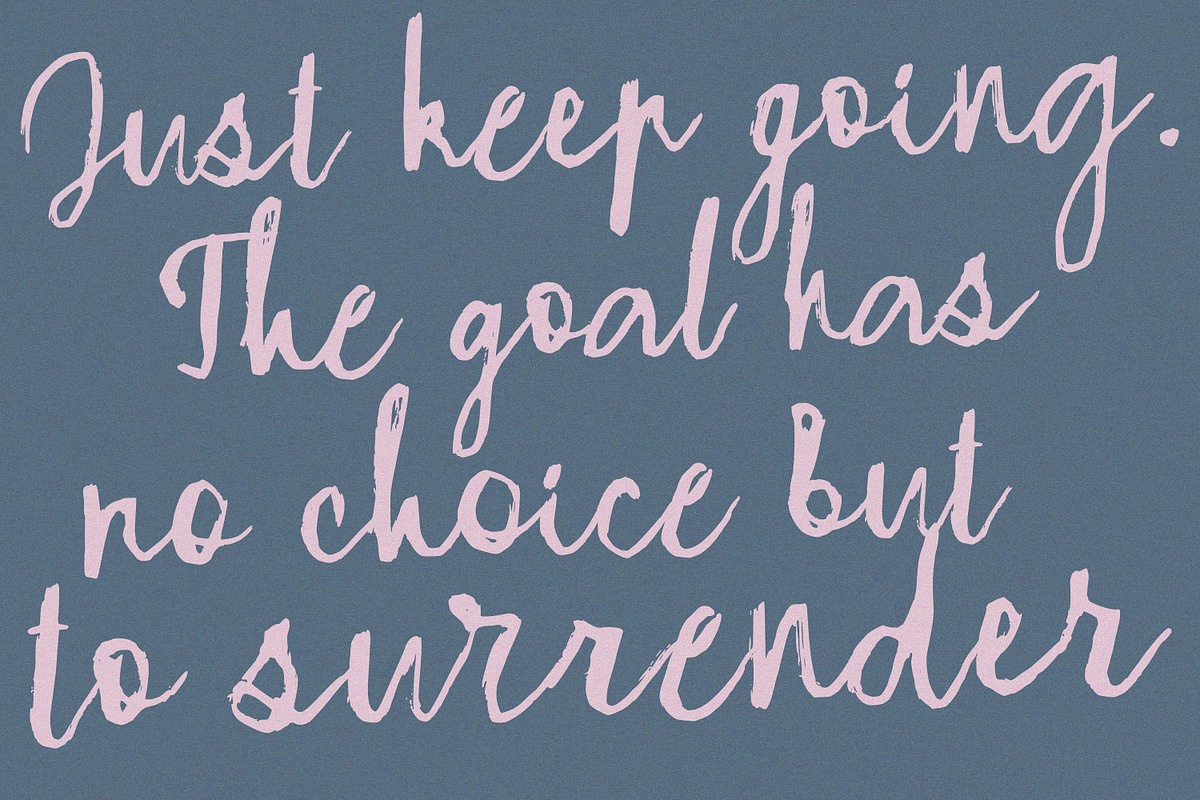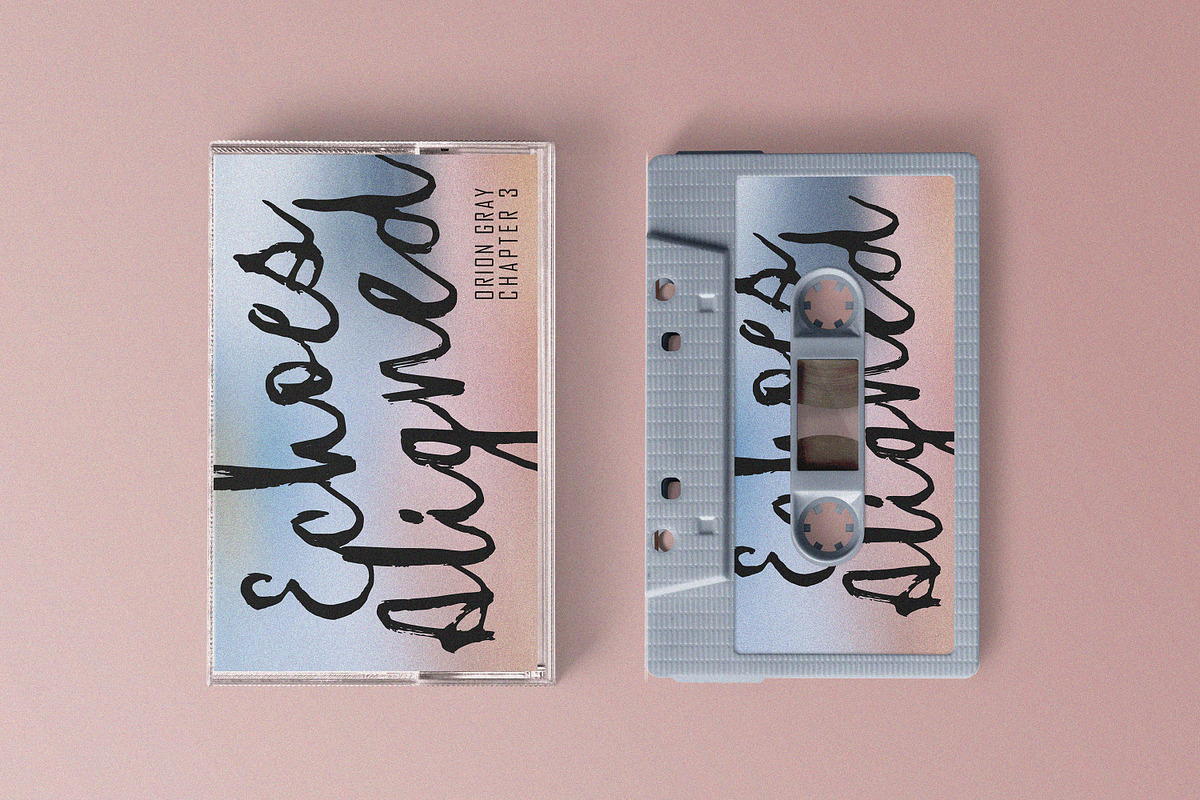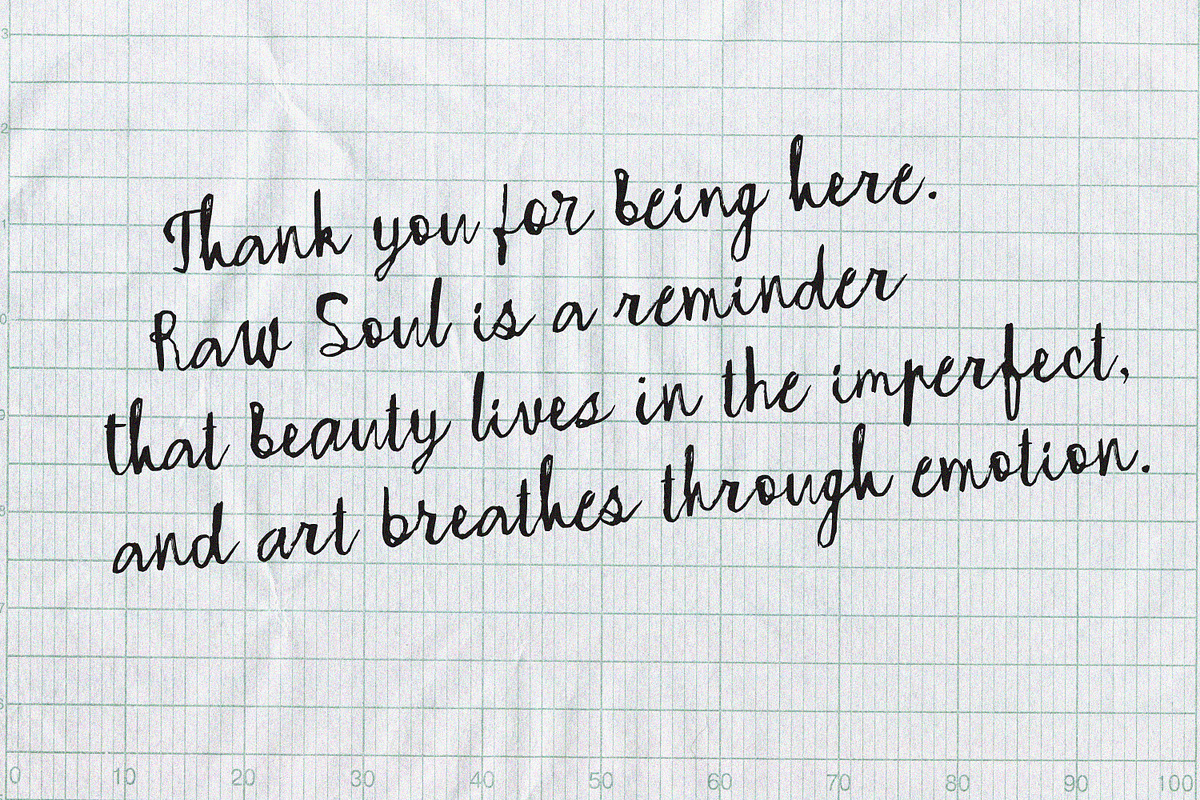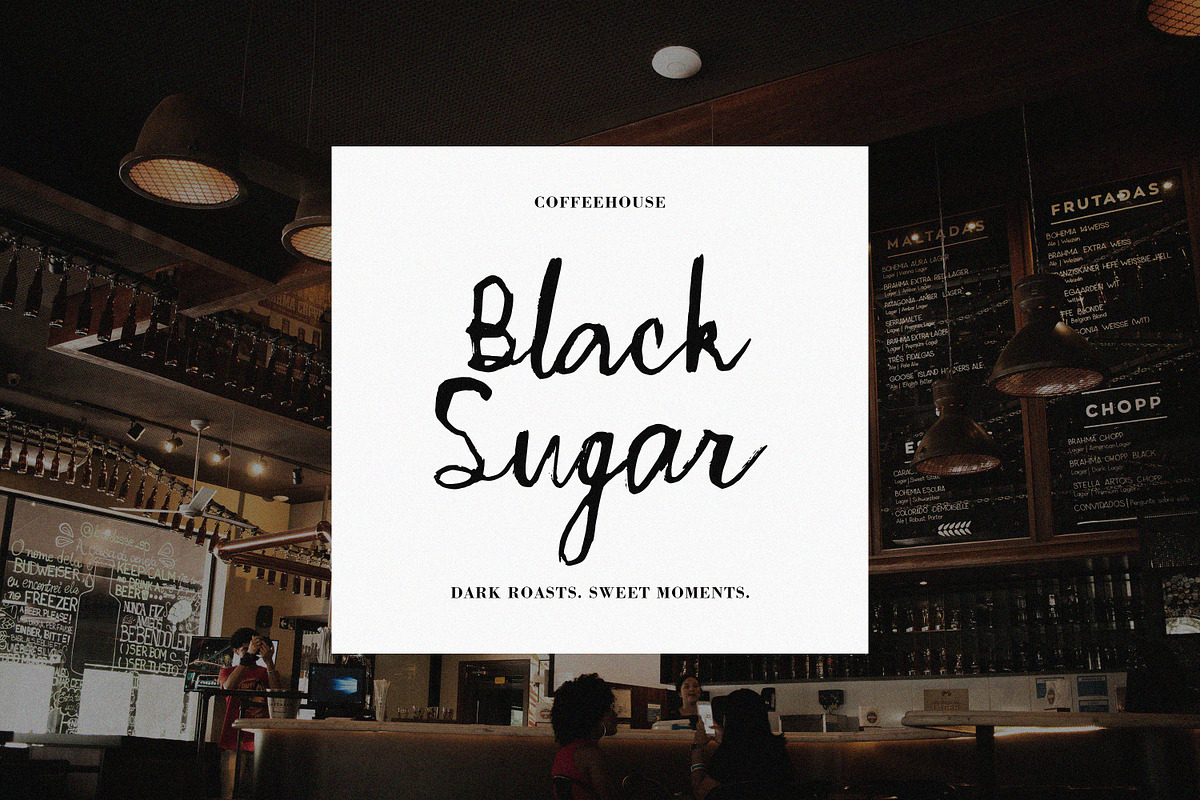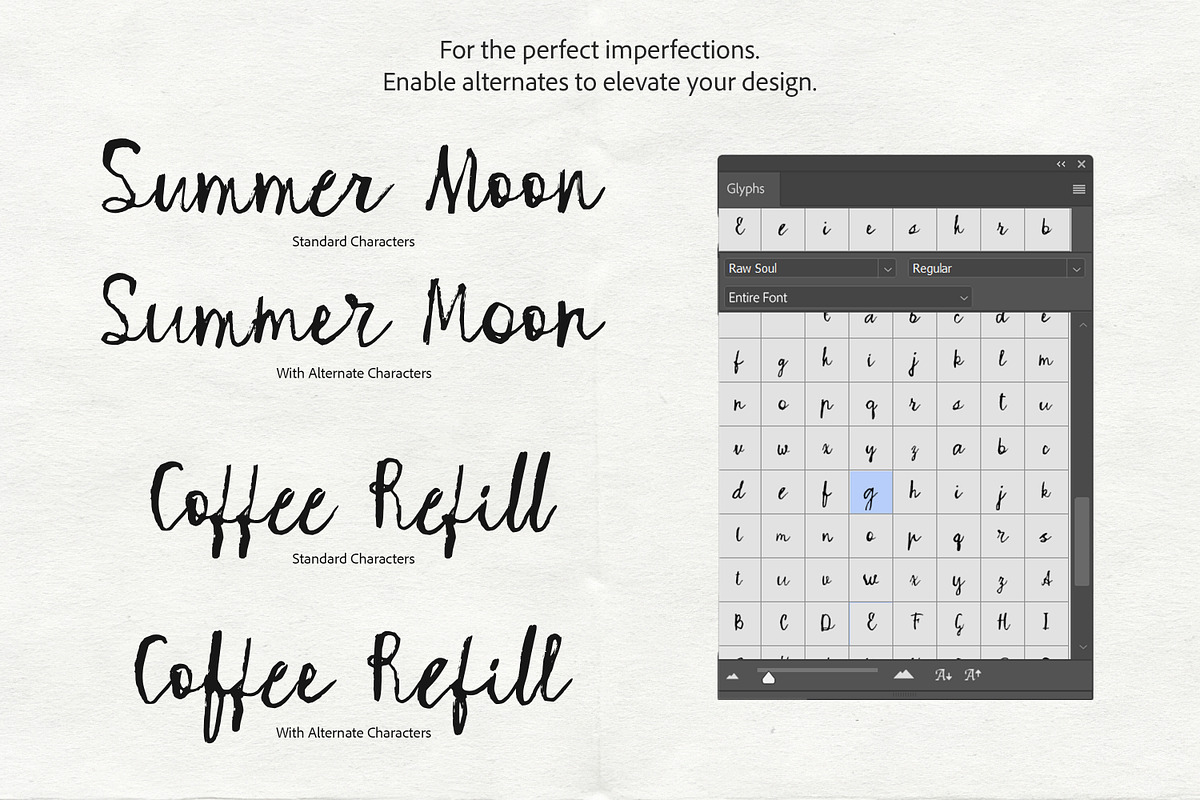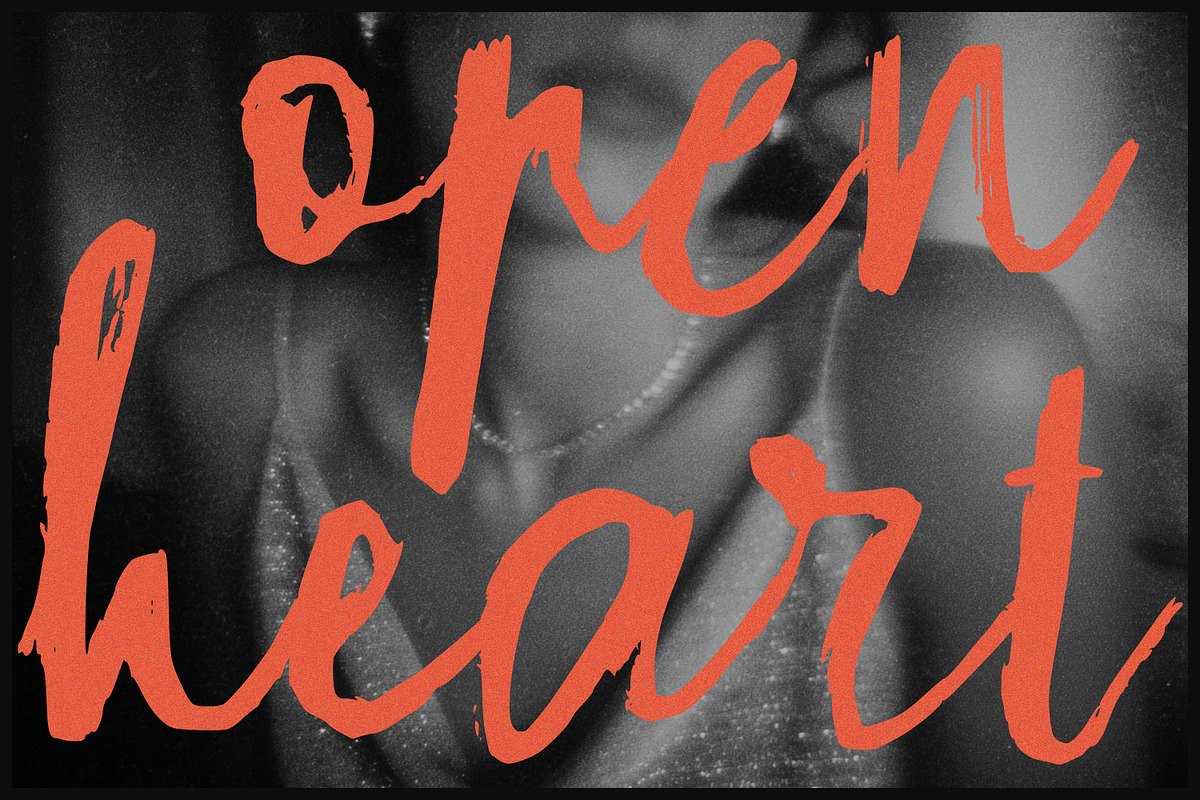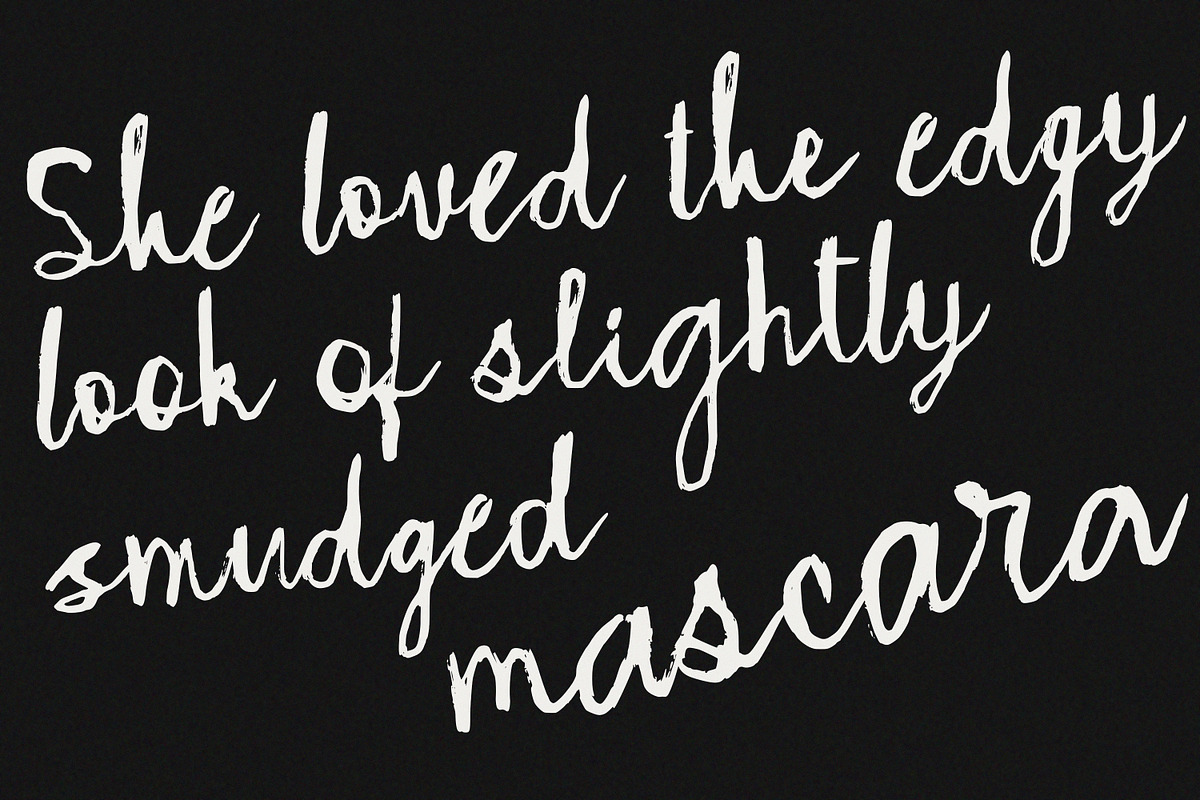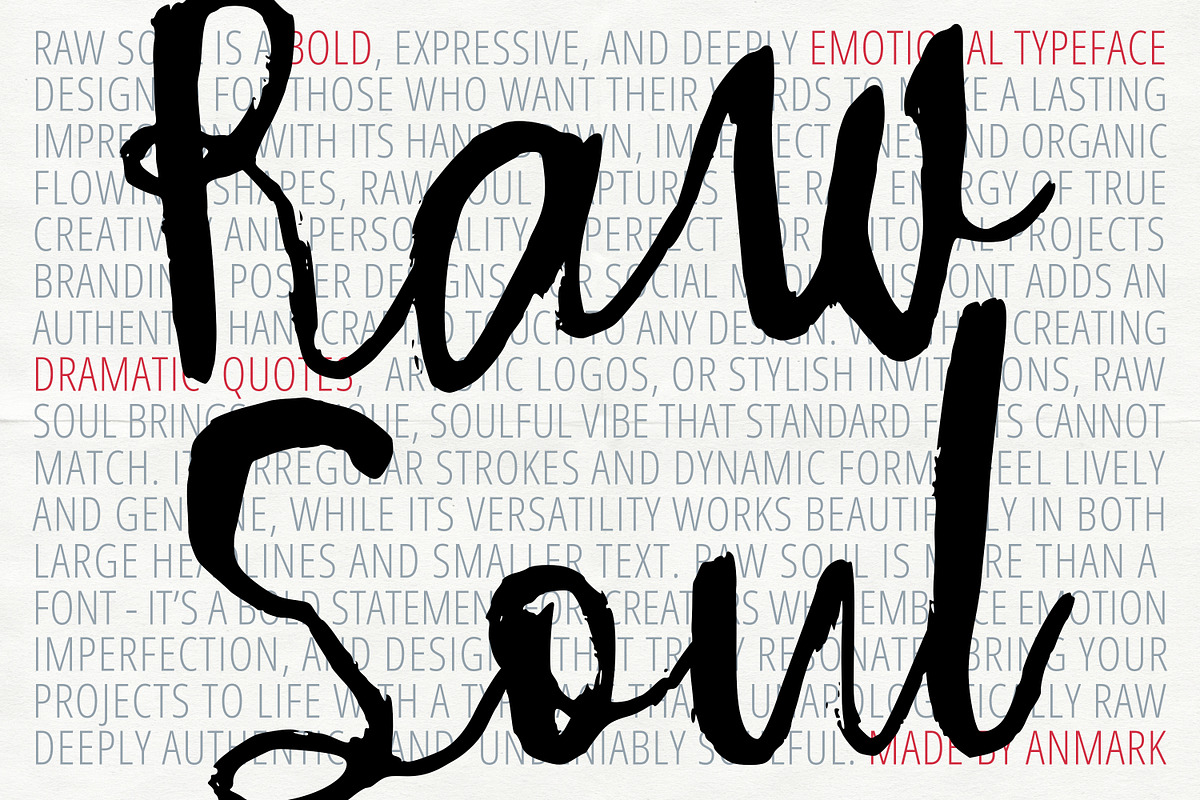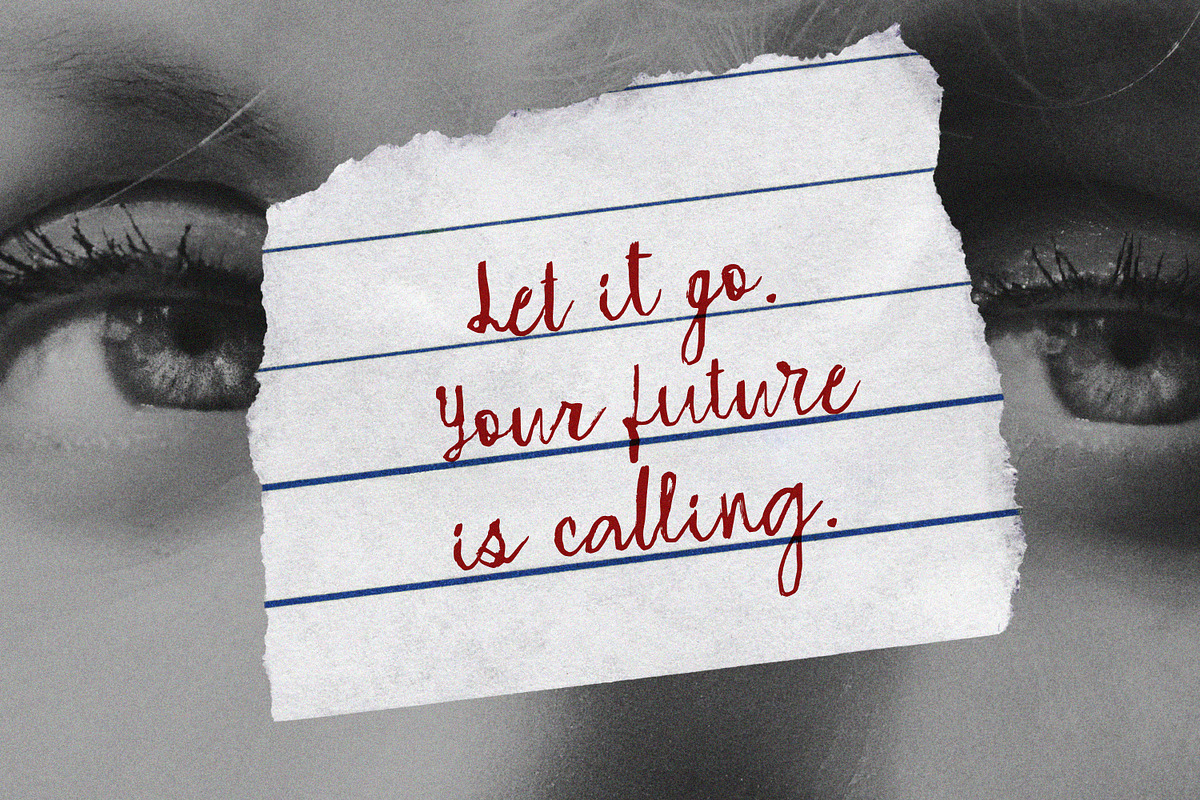
Raw Soul Expressive Messy Script
Raw Soul - Messy Script Font.
A script font with an unstructured, hand-drawn aesthetic for fashion branding, editorial design, and social media.
Technical Features:
- Full set of uppercase letters with stylistic alternates.
- Complete numerals with stylistic alternates.
- Two independent lowercase character sets with alternates. -Combination of characters creates a natural, non-repetitive handwritten flow.